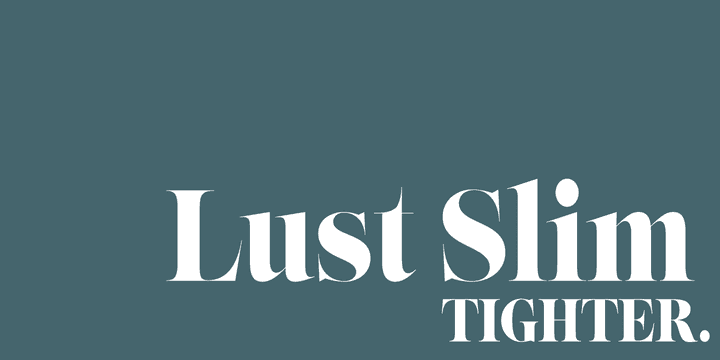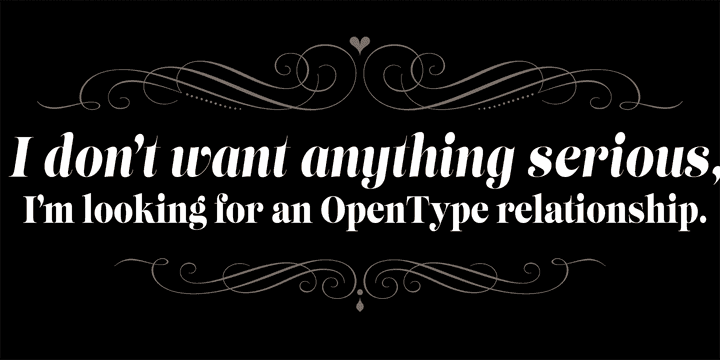
Lust Slim may seem at once both mysteriously new and yet somehow familiar. And it should. An explicit tip of the hat to Herb Lubalin, there is a tongue-in-cheek humor with the letterforms with this hint of unachievable moderne; its fine lines sliding gracefully into thick ones without creating an exceed; always just enough…never too much.